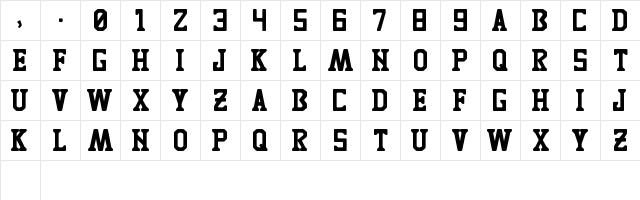
TIGRES UANL Regular
| Foundry | Jaime Rangel Castro |
| Designer | Jaime Rangel Castro |
Design Context for TIGRES UANL Typeface
TIGRES UANL offers clean, dependable letterforms without strong stylistic allegiance, making it a practical choice for designers who need flexibility.